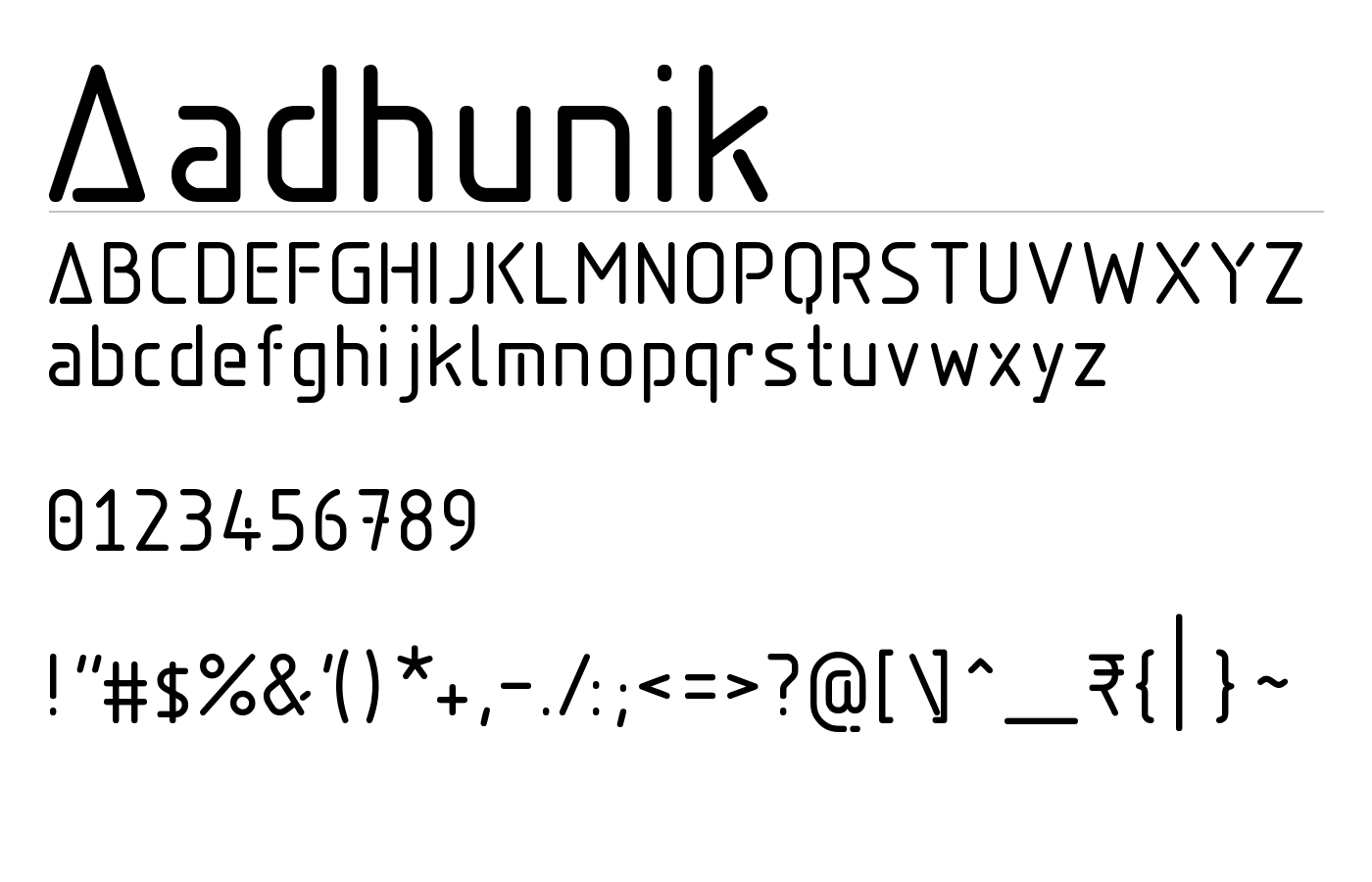
Aadhunik is a clean, modern sans serif font with a slightly condensed and geometric structure that exudes a futuristic yet approachable personality. Its rounded corners, uniform stroke weight, and distinctive letterforms give it a tech-inspired, minimalist vibe, making it ideal for branding, headlines, and digital interfaces where clarity and style are key. This font works especially well for contemporary designs that aim to convey innovation and simplicity.
Aadhunik Font
About Aadhunik Font
| Font family | Aadhunik Font |
| Designer | Hareesh Seela |